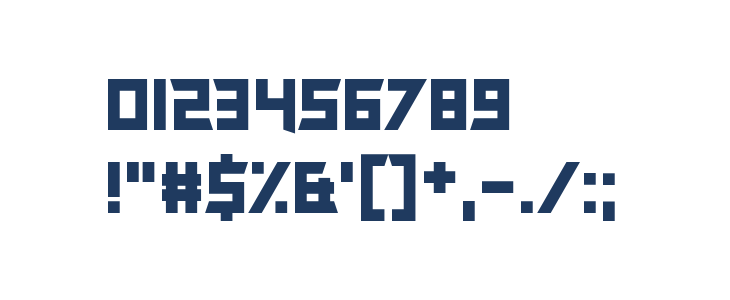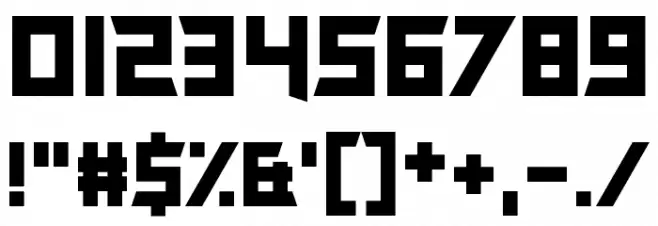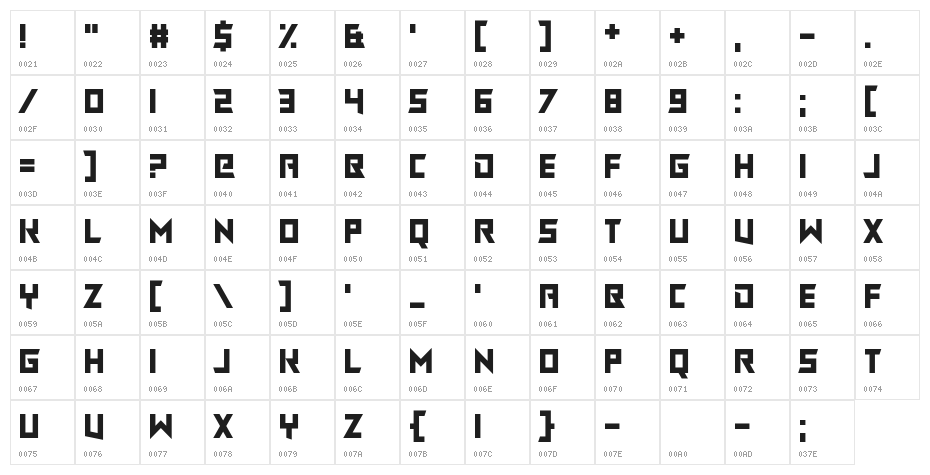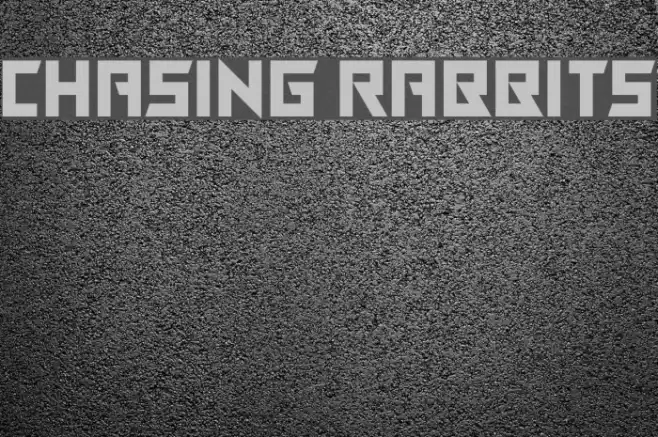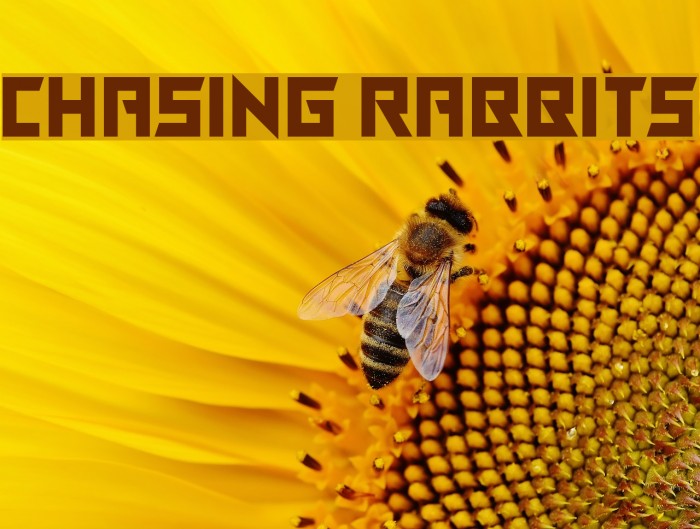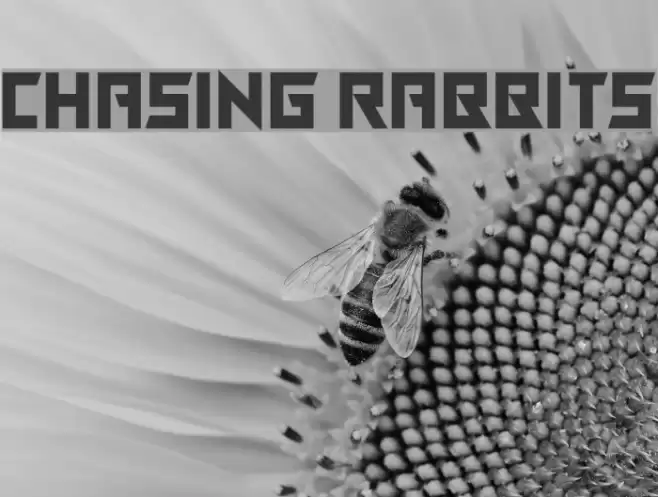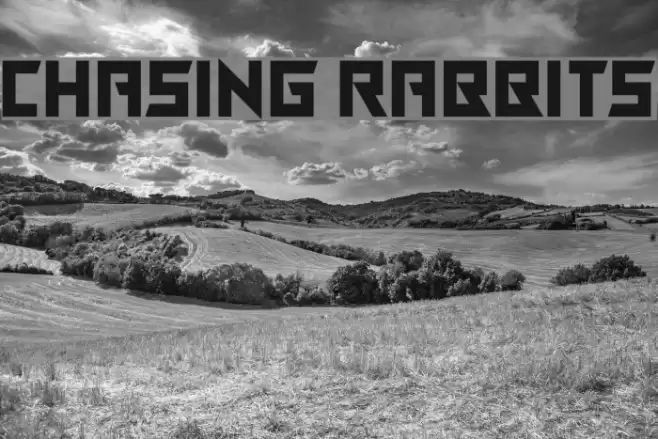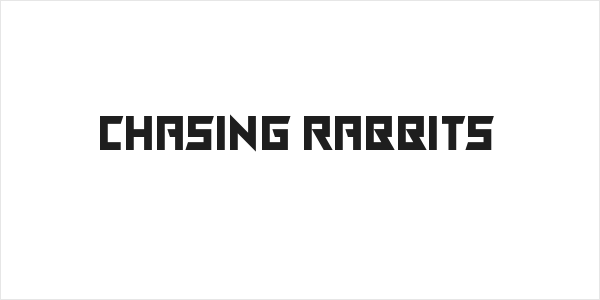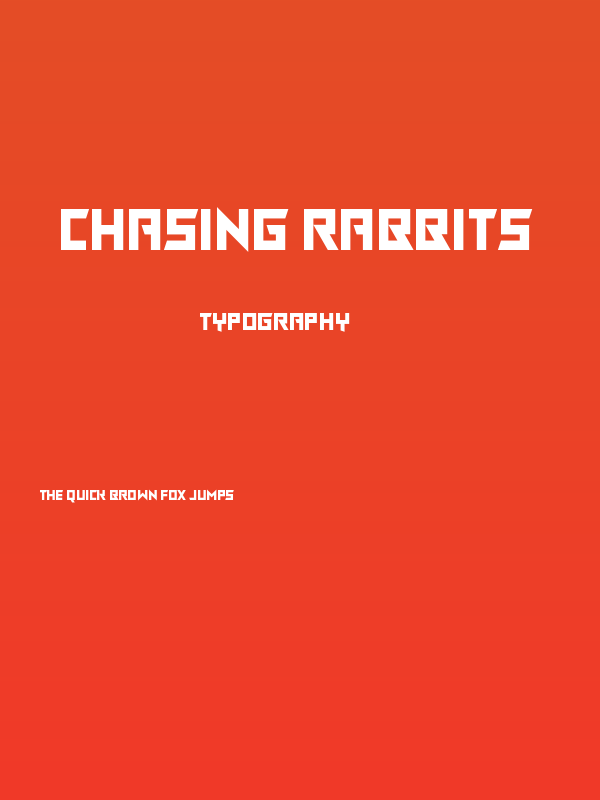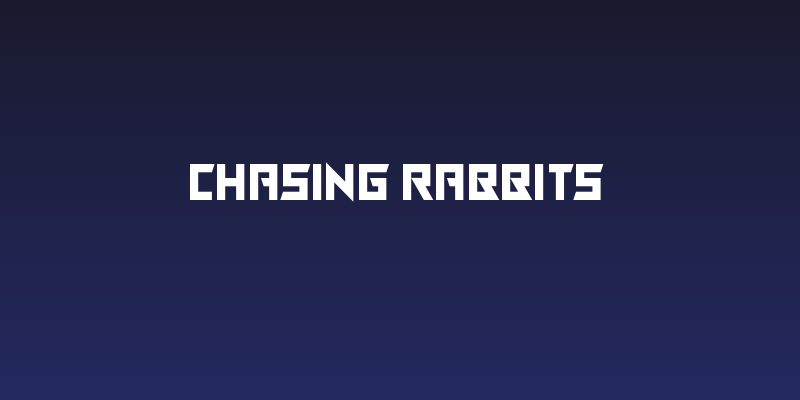
Chasing Rabbits Font
Chasing Rabbits Description
This font features a bold, geometric design with sharp angles and a strong presence. Each character is crafted with a consistent thickness, creating a uniform and cohesive look. The angular style gives it a futuristic and edgy appearance, making it stand out in any design. The uppercase letters are particularly striking, with their blocky forms and distinct cuts. The numerals and special characters maintain the same bold and angular aesthetic, ensuring a seamless integration across different uses. This font is ideal for projects that require a modern and impactful look.
| Proposed Projects | Ideal for branding, posters, video game graphics, and any project needing a modern, edgy look. |